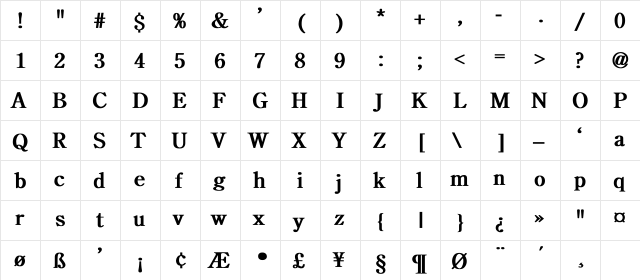
CenturyOldStyle-Light Bold
Design Context for CenturyOldStyle-Light Typeface
CenturyOldStyle-Light carries the refined structure of traditional serif typography, with bracketed terminals and considered proportions that communicate credibility and craft. Its bold stroke weight gives it real presence on the page.
Pro Tip: Set CenturyOldStyle-Light at slightly larger body copy sizes than you would a regular-weight serif to compensate for its delicate stroke contrast.